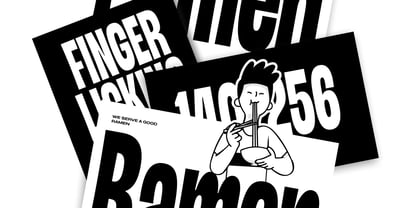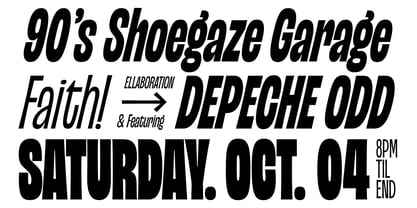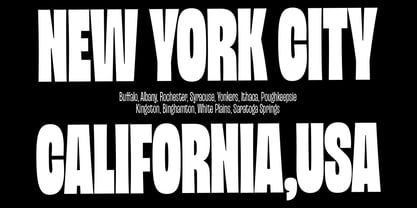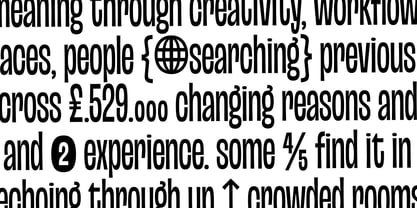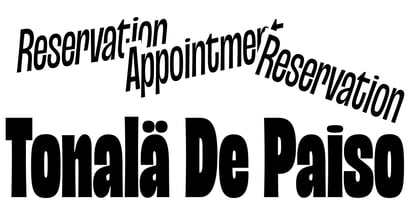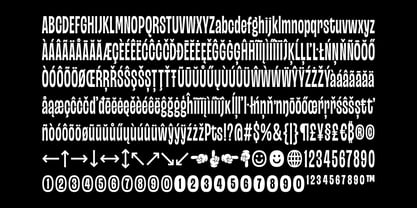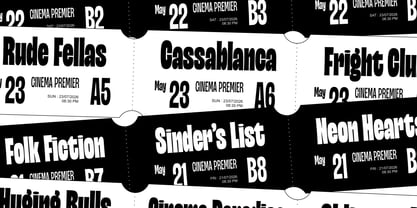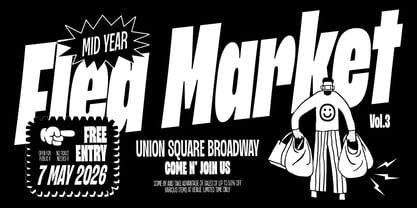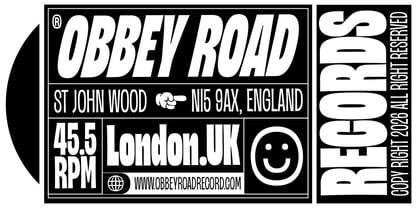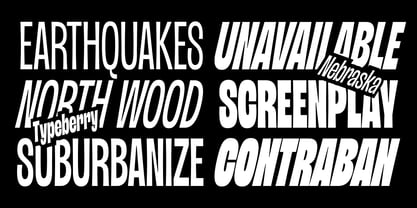
Nebraska
by Typeberry
The Nebraska Font Family was designed by Annas Alam Yahya, Bagus Arya Kirana, Michola Putra Siswandi and published by Typeberry. Nebraska contains 14 styles and family package options. More about this family
Nebraska is a bold condensed display typeface built to command attention. Featuring a tall, compressed structure with powerful strokes and dynamic italic styles, Nebraska delivers a strong visual impact while maximizing space efficiency. Its distinctive blend of retro-inspired curves and contemporary proportions makes it ideal for headlines, posters, branding, packaging, editorial layouts, music promotions, sports graphics, and eye-catching social media content.
Designed with versatility in mind, Nebraska includes 7 weights from Light to Black, plus matching Italics, allowing designers to create expressive typographic hierarchies while maintaining a cohesive visual identity. Whether used for large-scale headlines or bold branding applications, Nebraska brings confidence, energy, and character to every design.
Perfect for:
Branding, logos, posters, magazine covers, album artwork, event promotions, sports graphics, streetwear, packaging, advertising, editorial design, and social media campaigns.
Designers: Annas Alam Yahya, Bagus Arya Kirana, Michola Putra Siswandi
Foundry: Typeberry